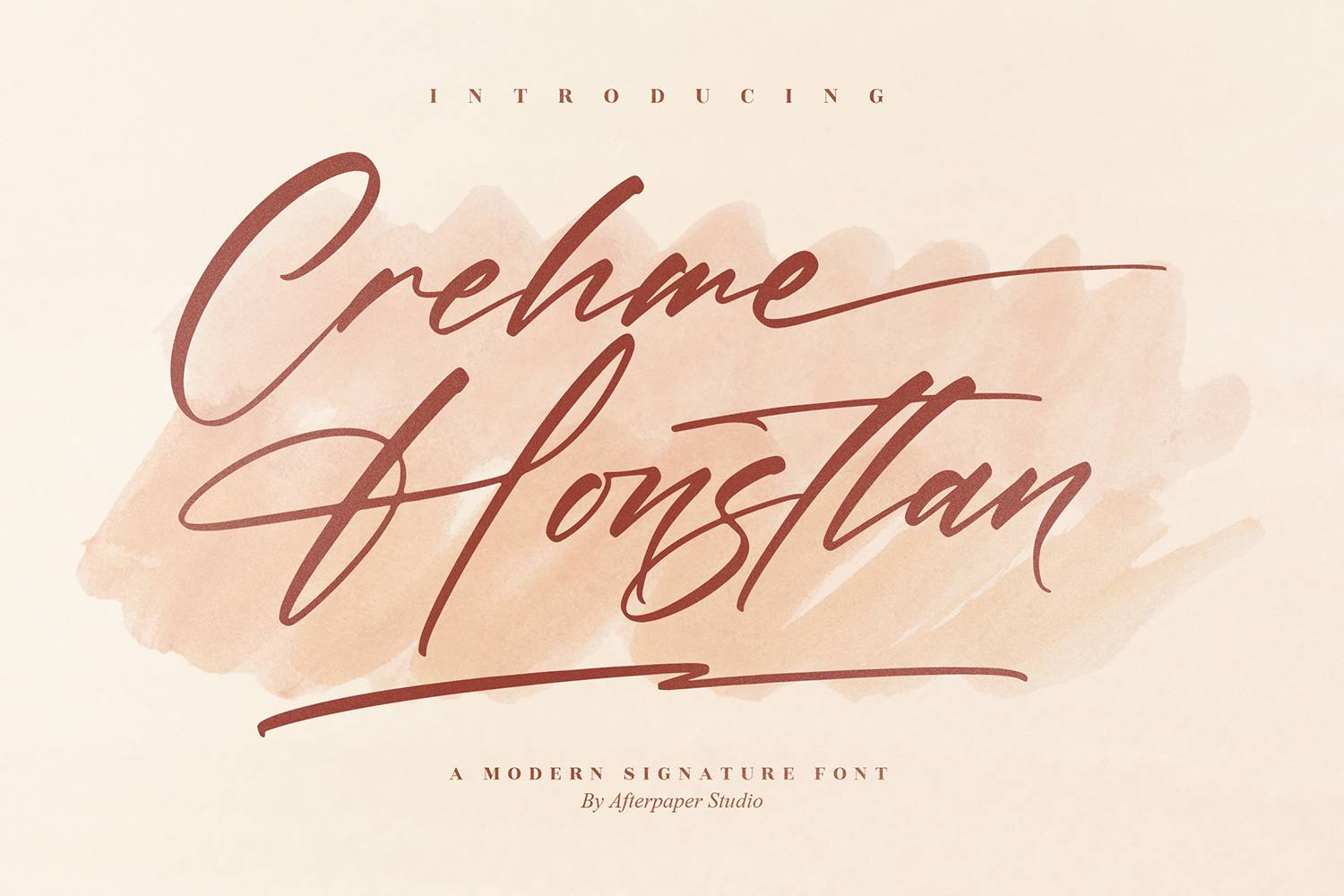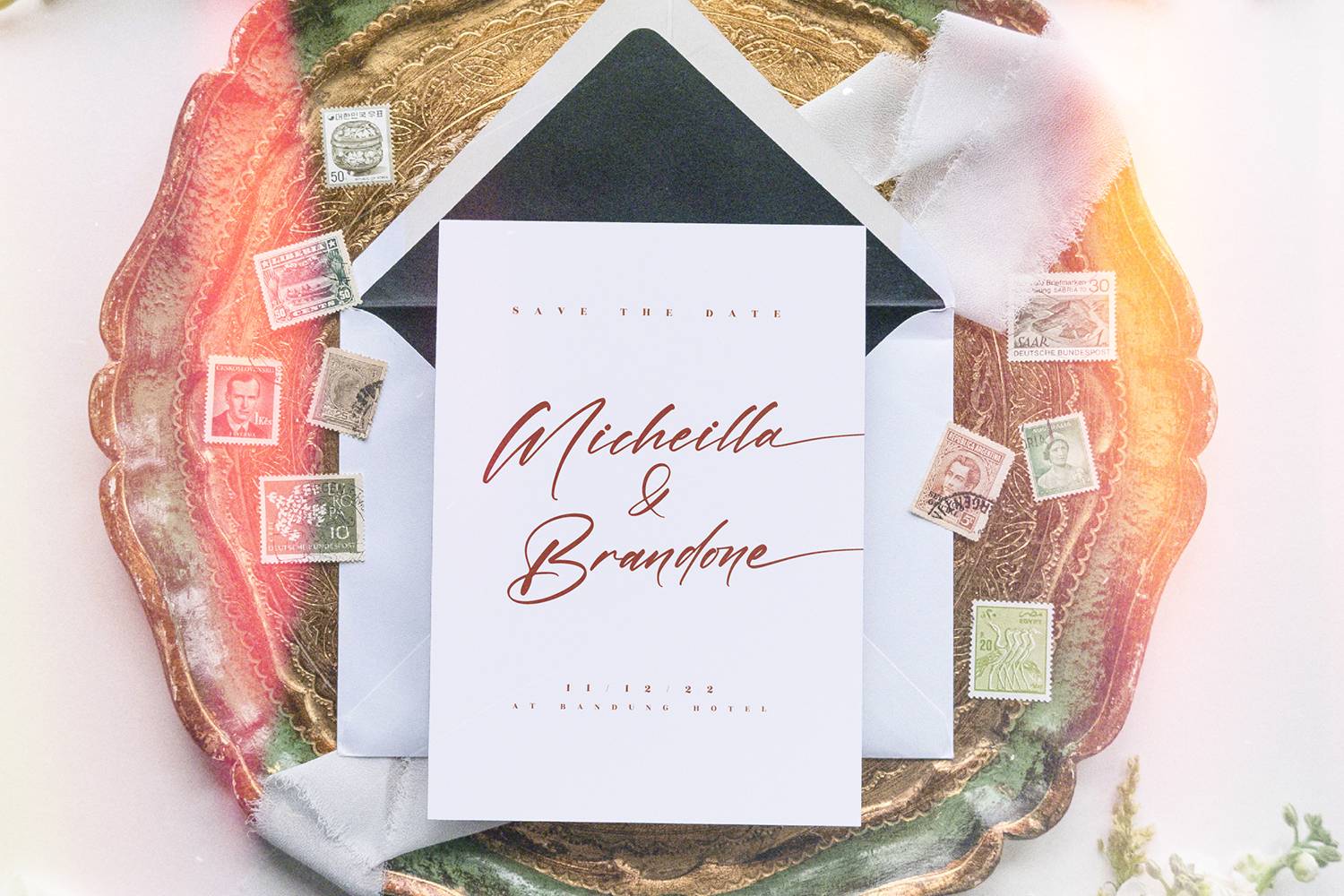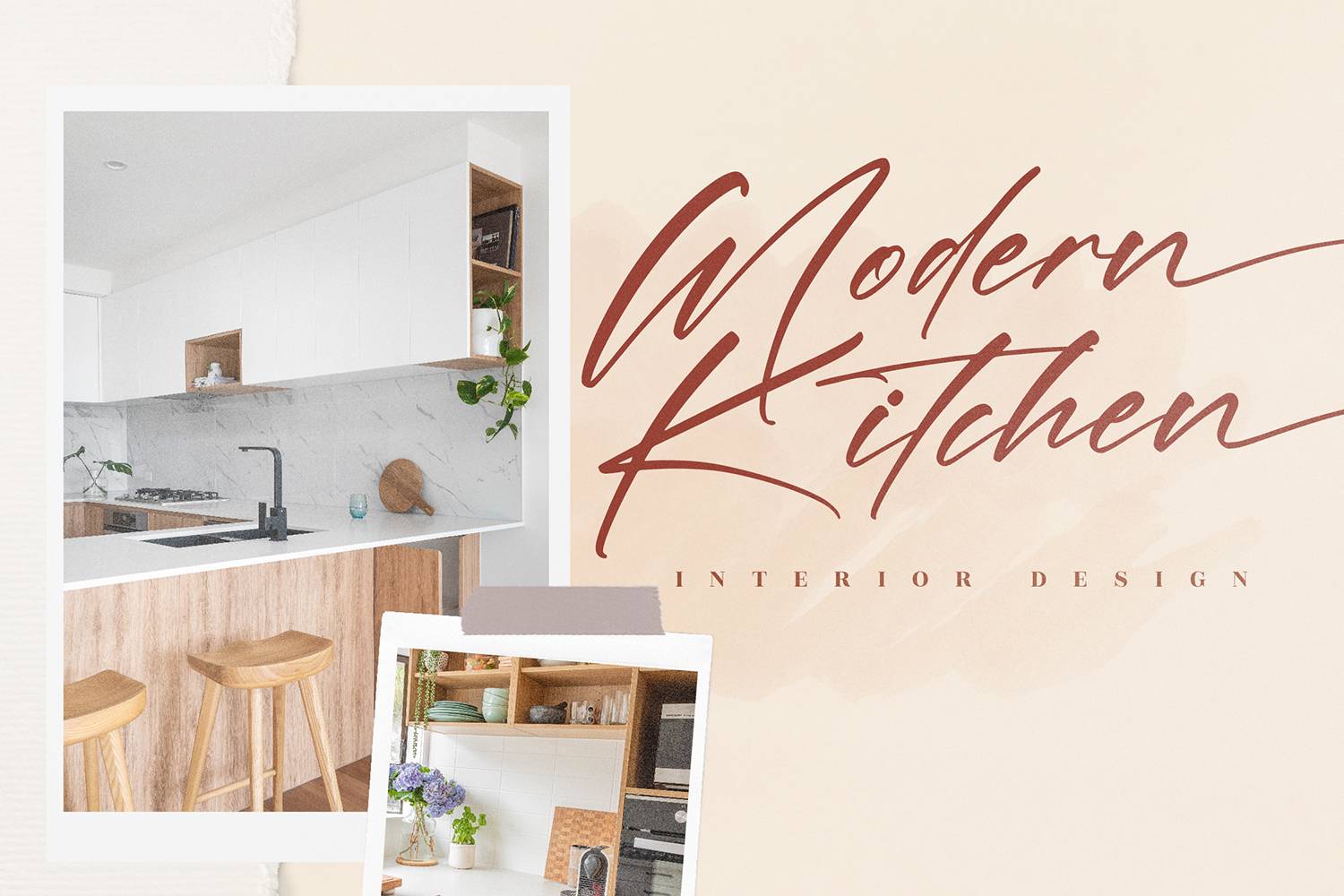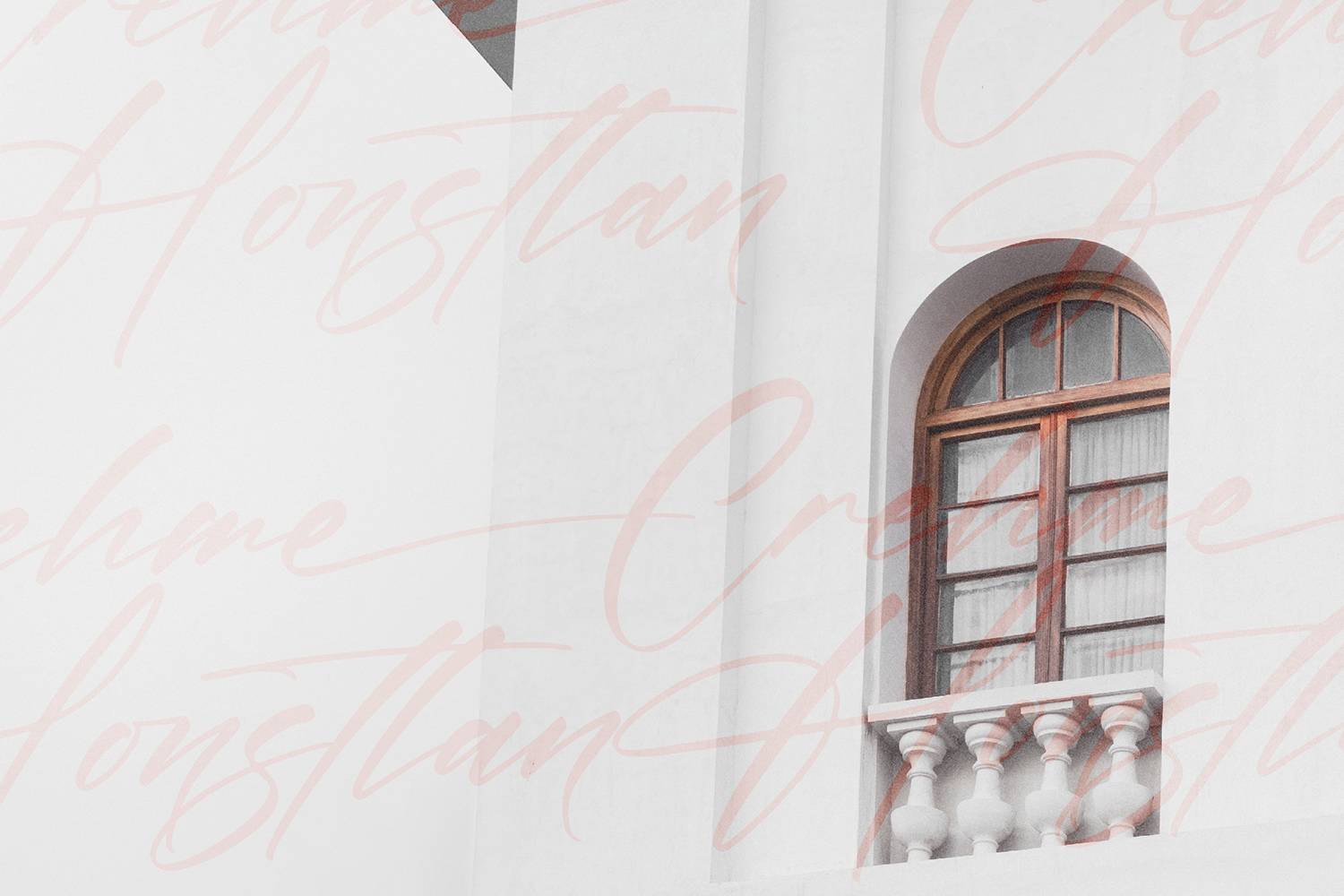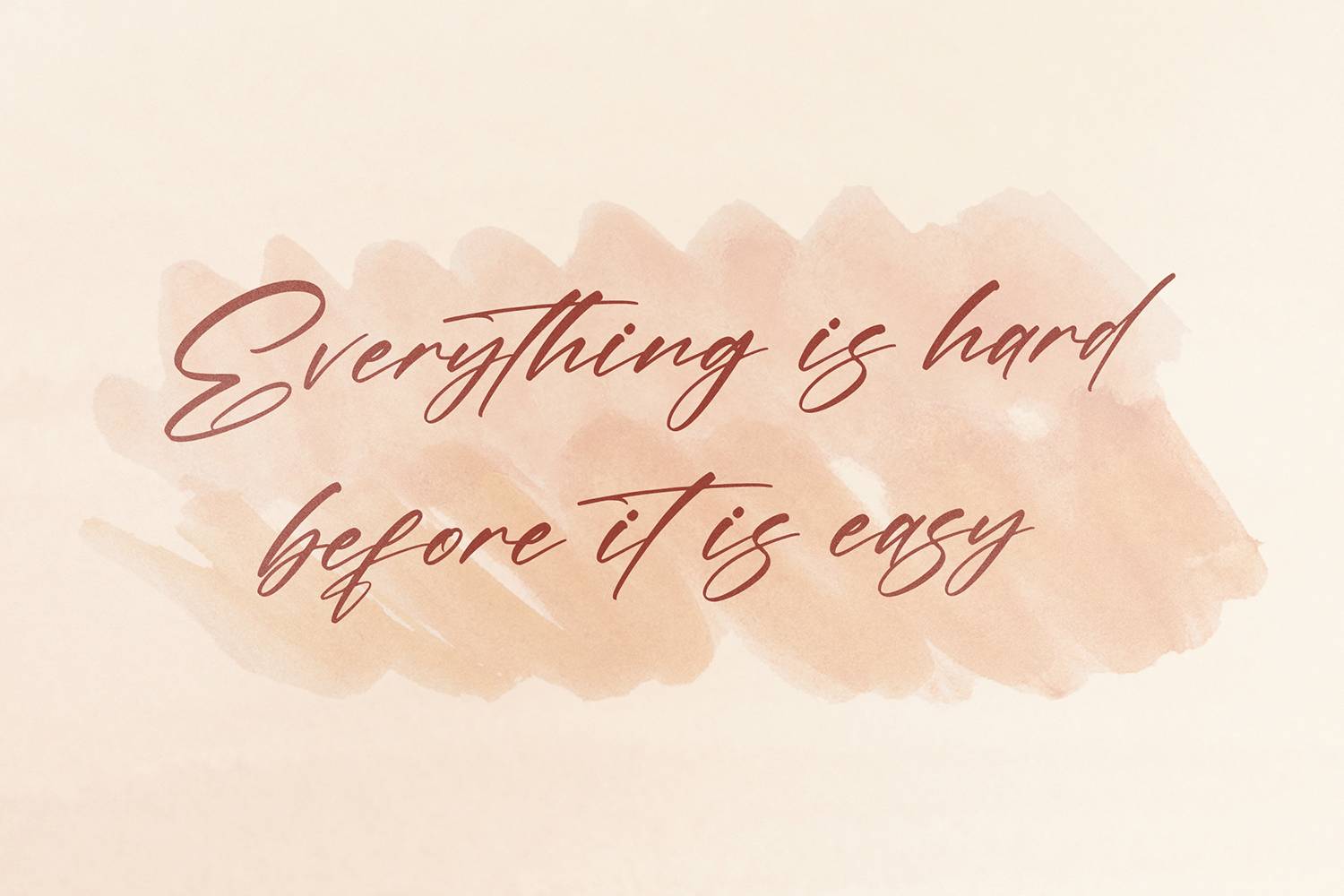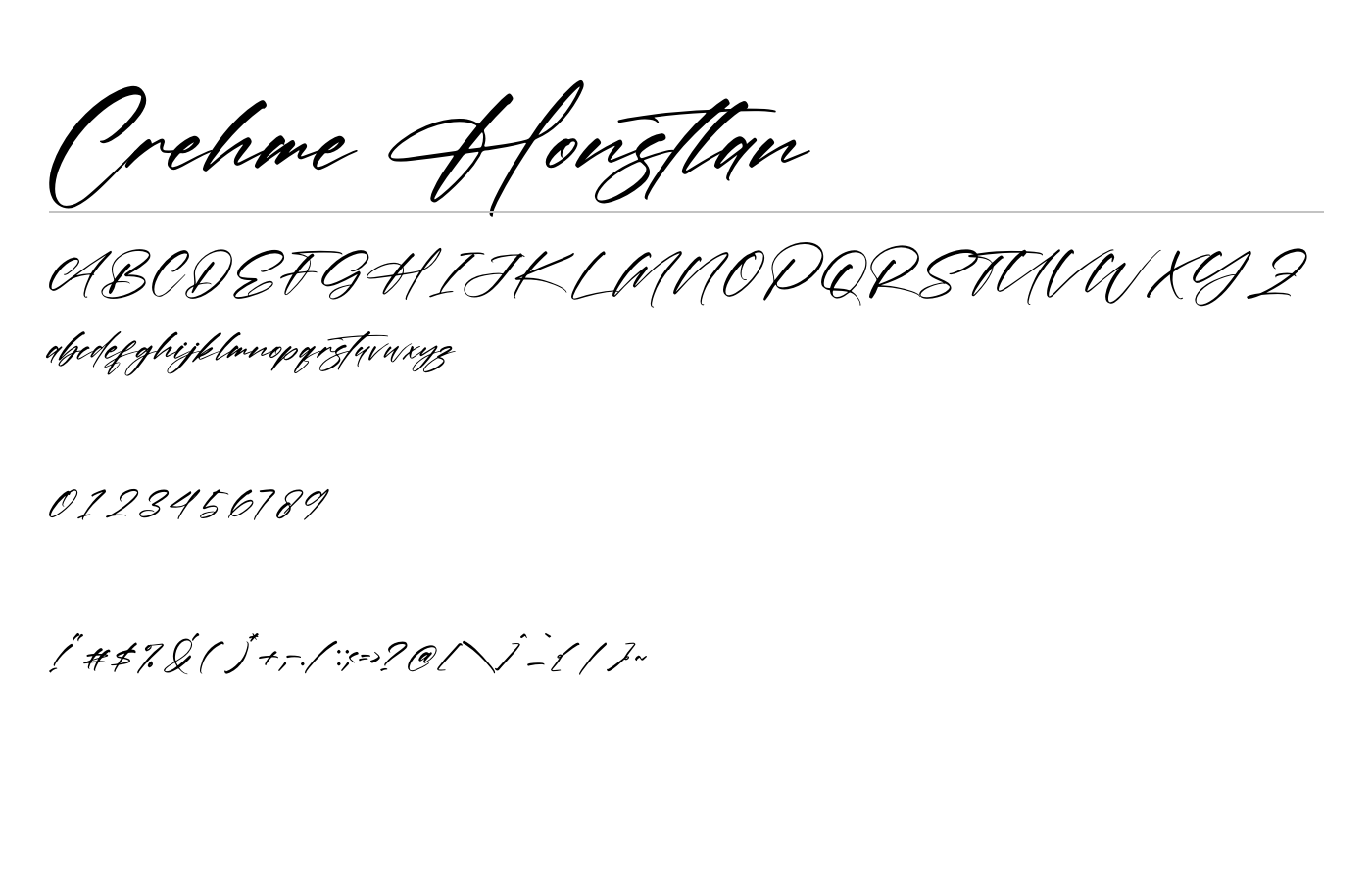
Crehme Honstlan is a delicate and elegant script font that mimics natural, flowing handwriting with a modern touch. Its slender strokes and high-contrast lines give it a refined, stylish personality, making it perfect for luxury branding, invitations, and sophisticated editorial design. This font works best in display use where its graceful curves and artistic flair can truly shine.
Crehme Honstlan Font
About Crehme Honstlan Font